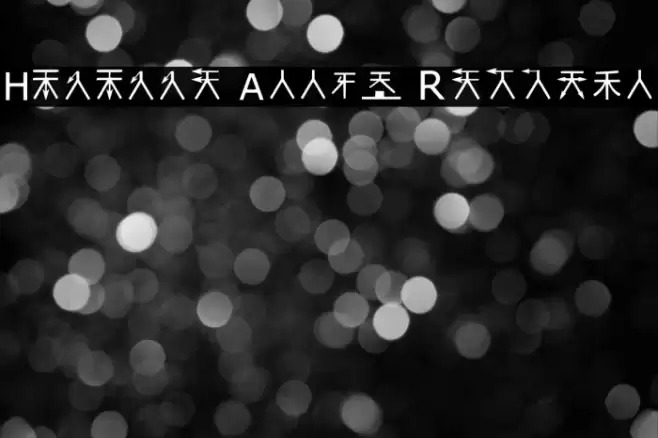
Hititte Arrow Regular Font
Hititte Arrow Regular Description
This font features a unique and modern design with clean, geometric lines and a distinct arrow motif integrated into each character. The uppercase letters are bold and striking, with a consistent stroke width that gives a sense of stability and strength. The lowercase letters maintain the geometric theme, offering a cohesive look across the typeface. Numbers and special characters are designed to match the overall aesthetic, ensuring uniformity throughout. The font's style is both contemporary and versatile, making it suitable for a variety of design applications.
A modern, geometric font with an arrow motif and consistent stroke width from Uncategorized fonts.
- Proposed Projects: Ideal for branding, logos, headlines, and modern design projects that require a bold and distinctive typeface.